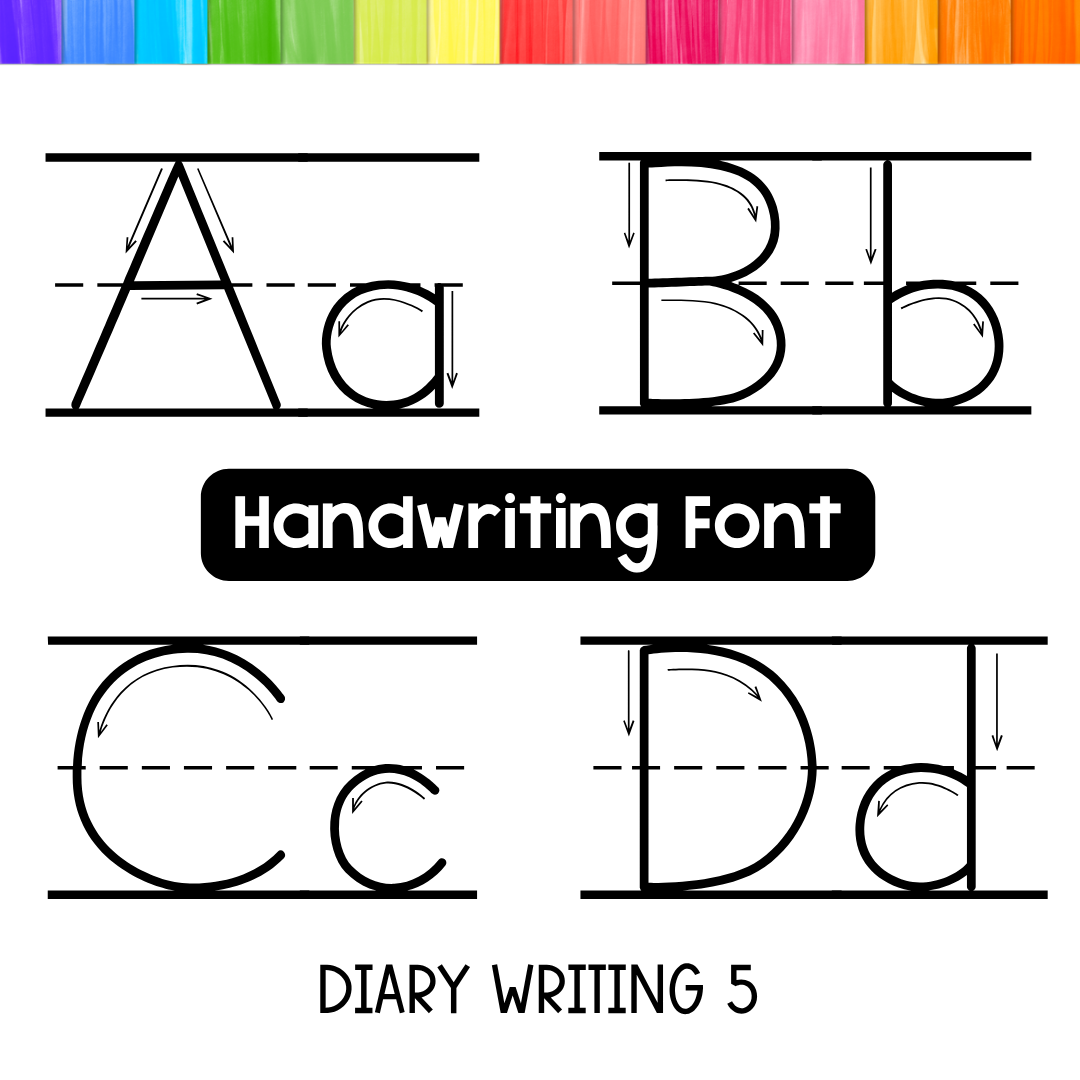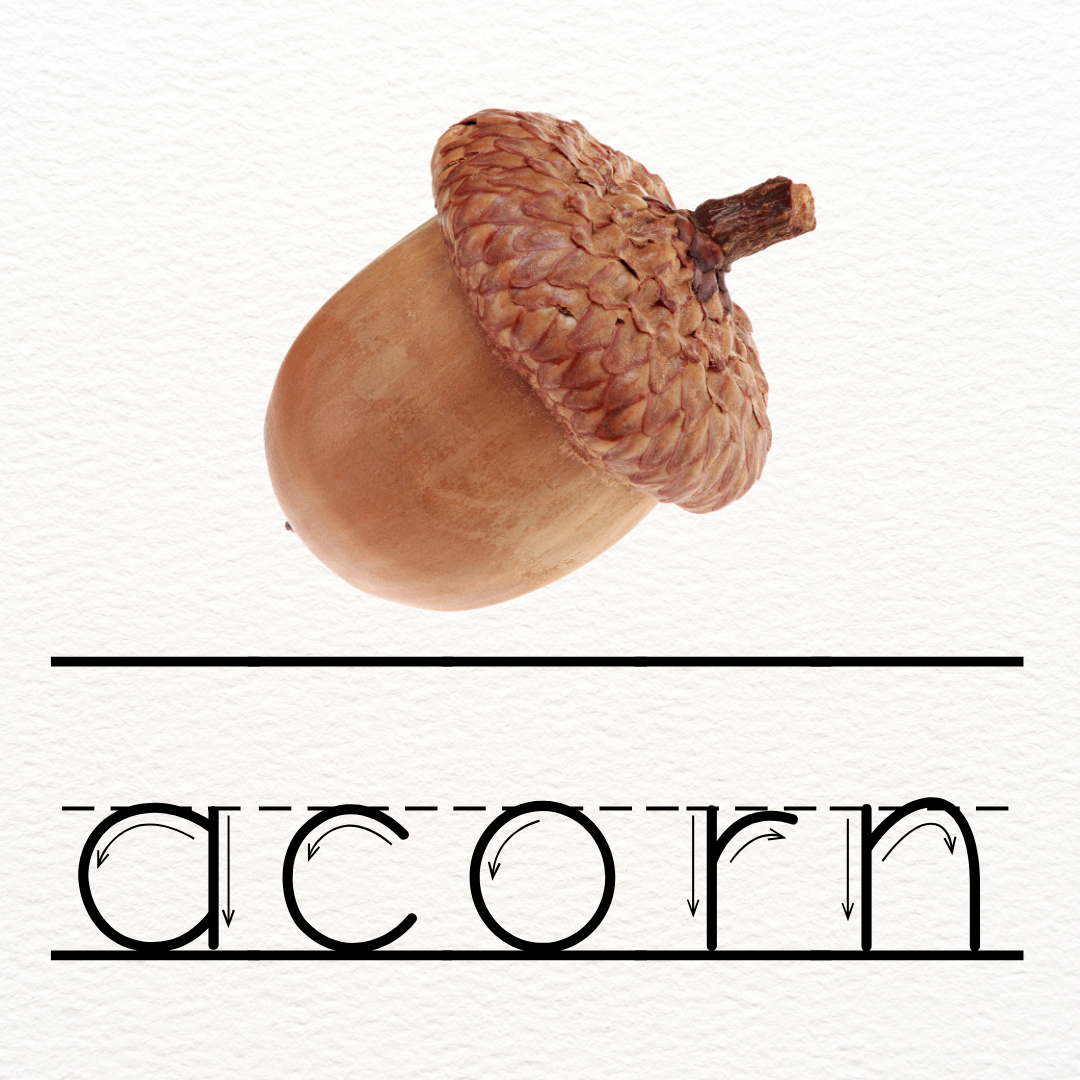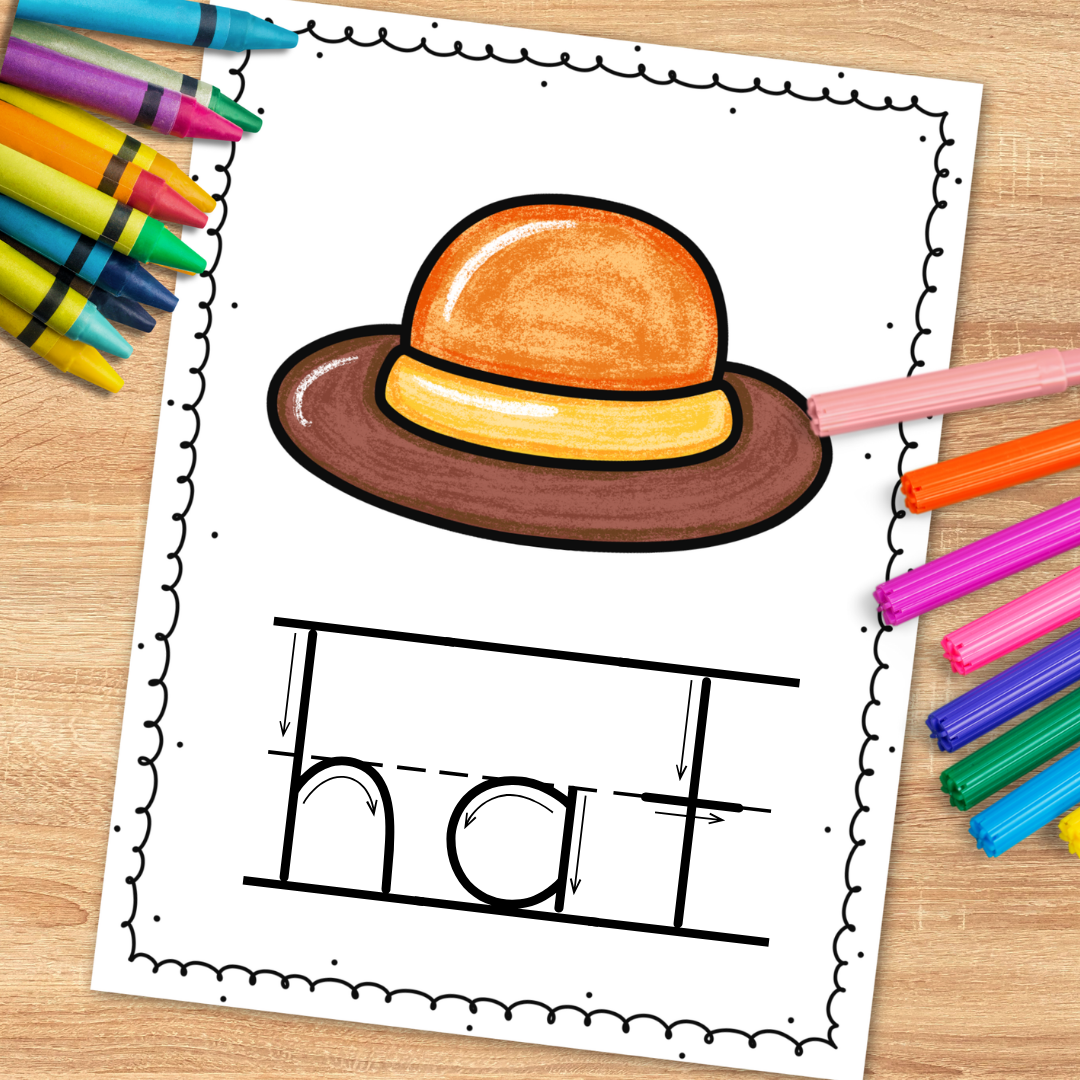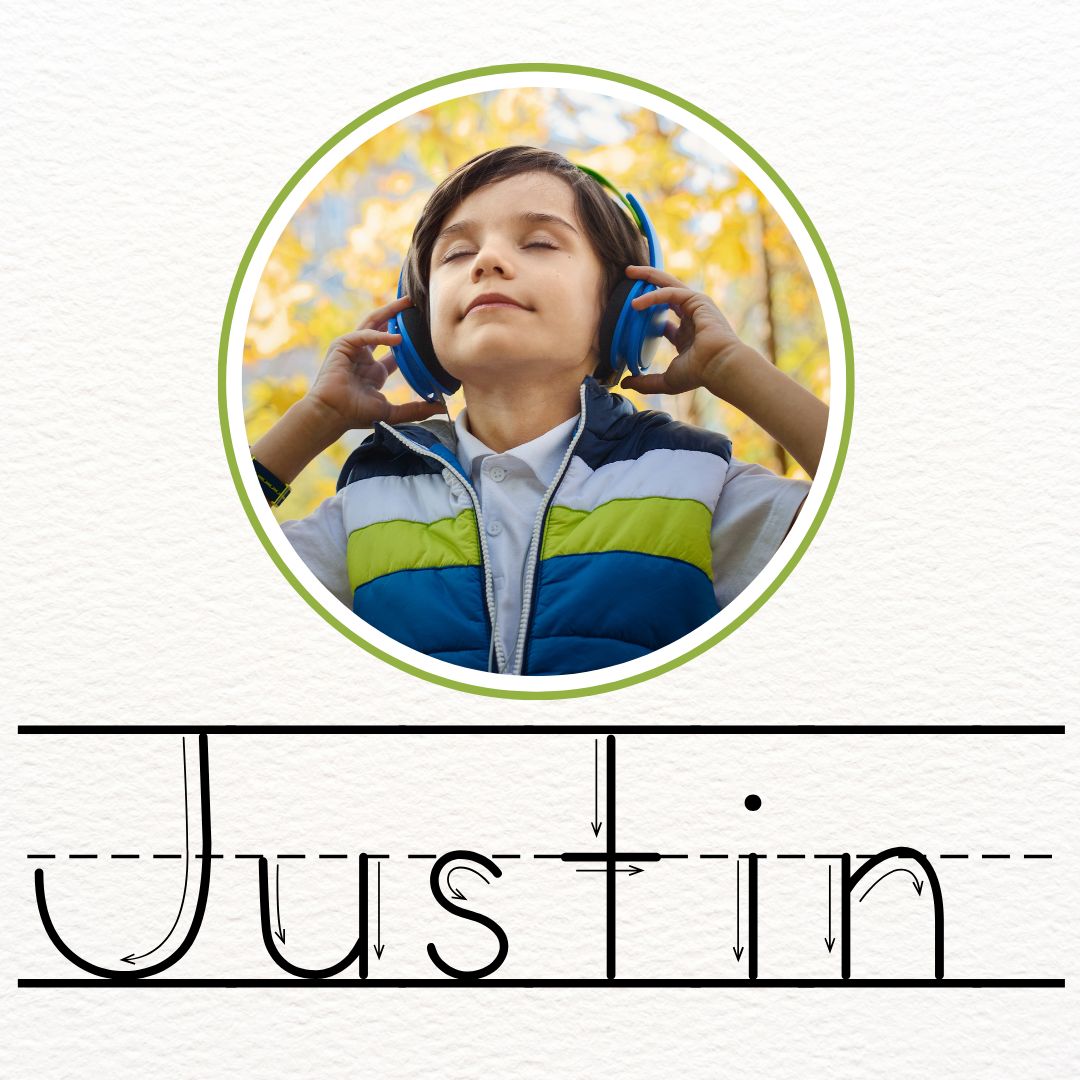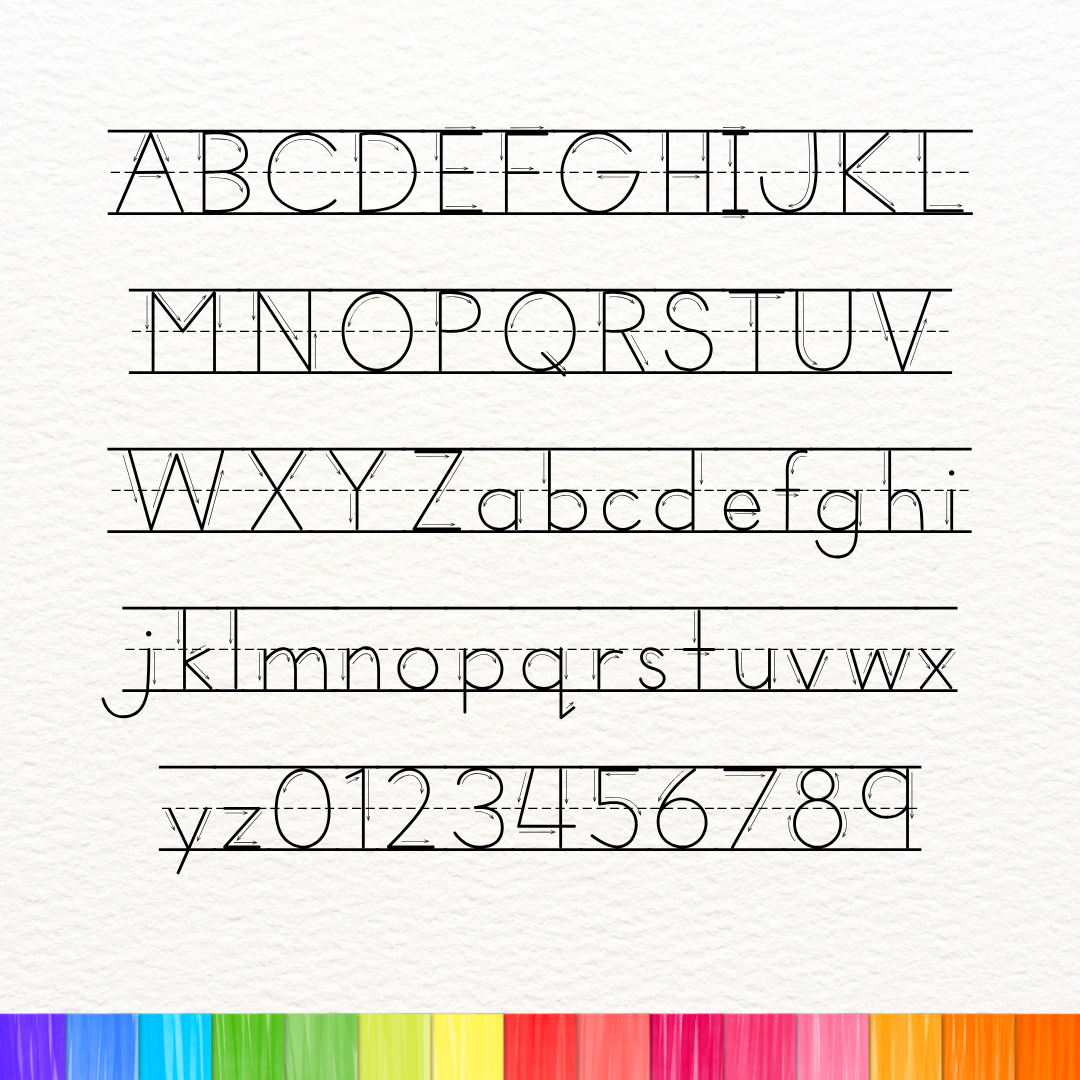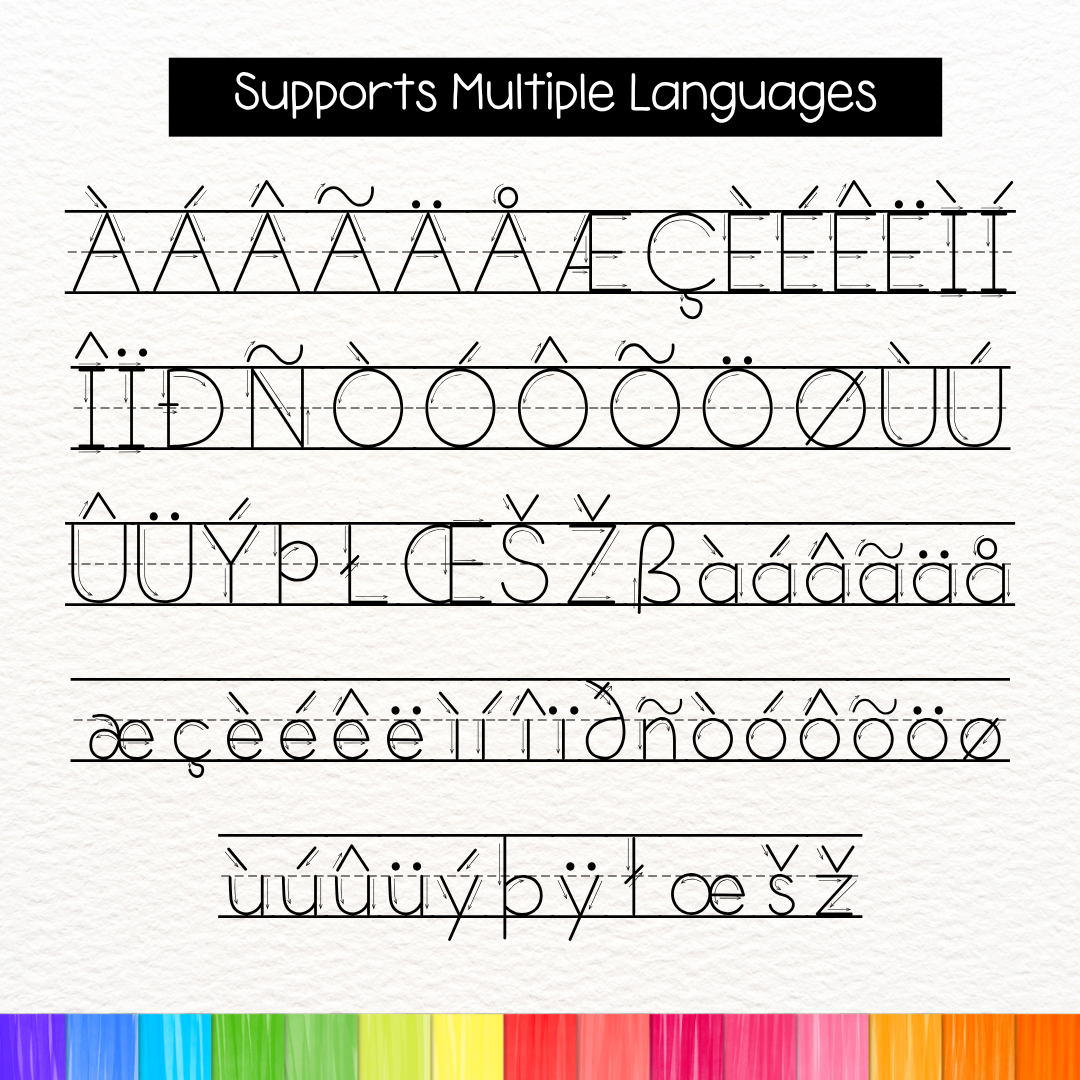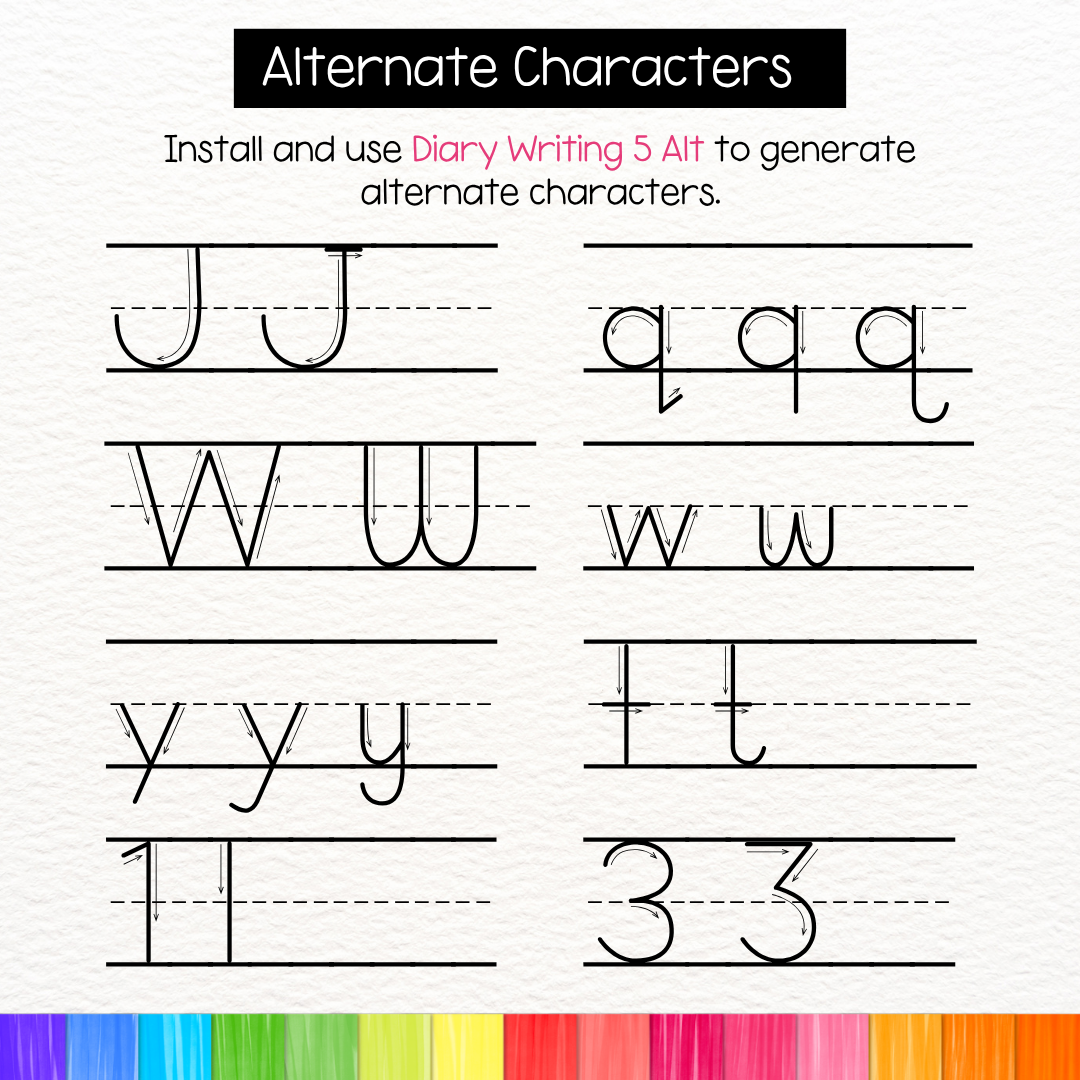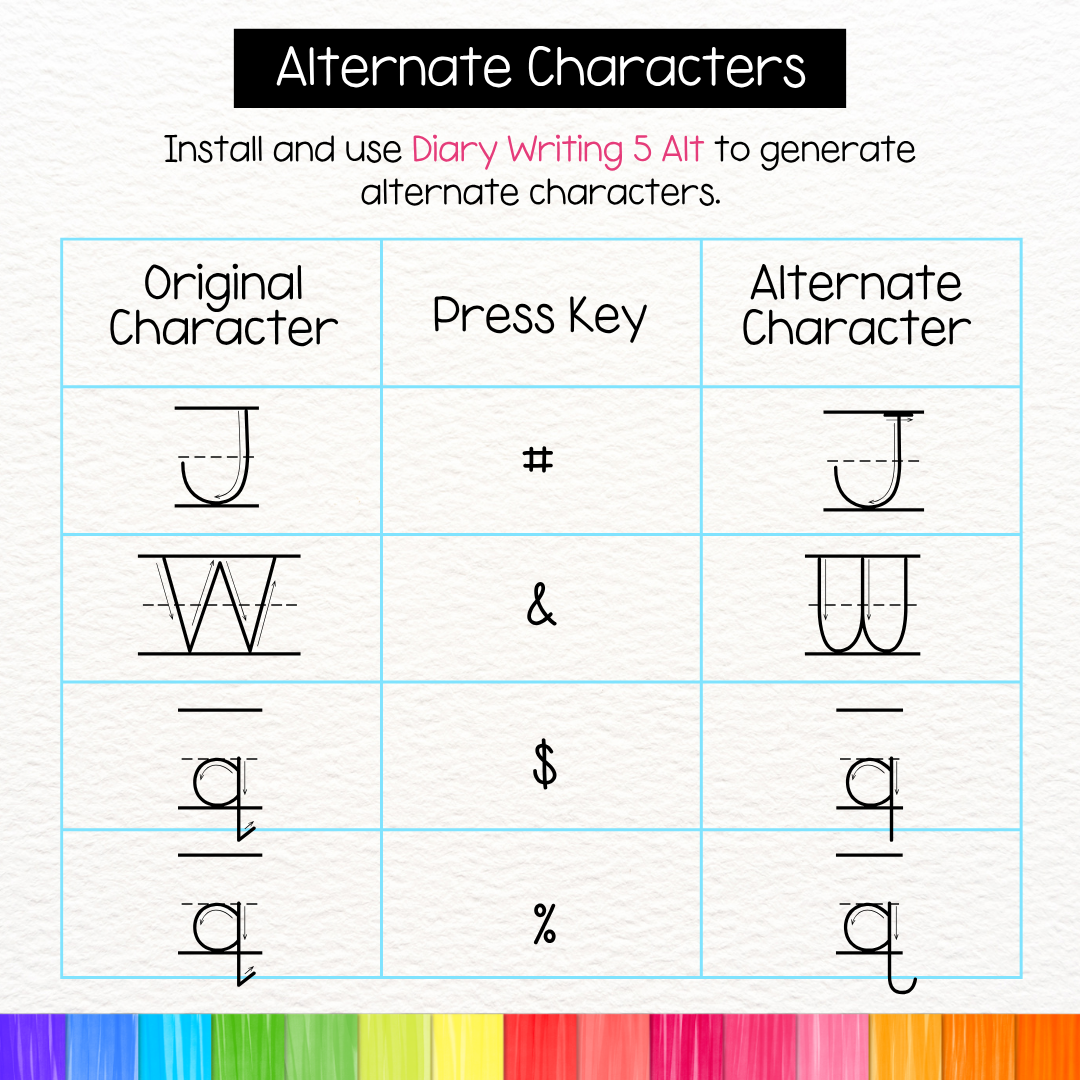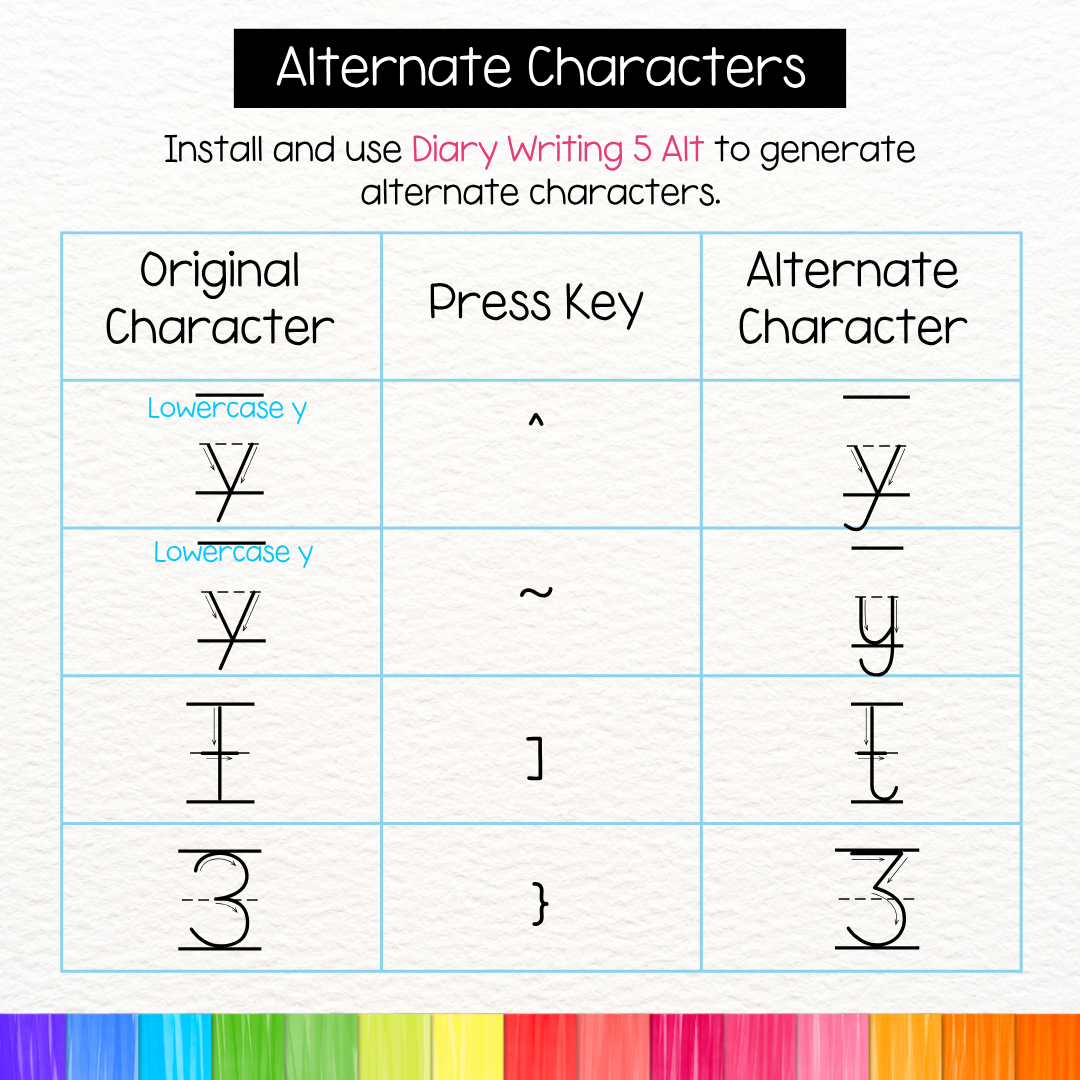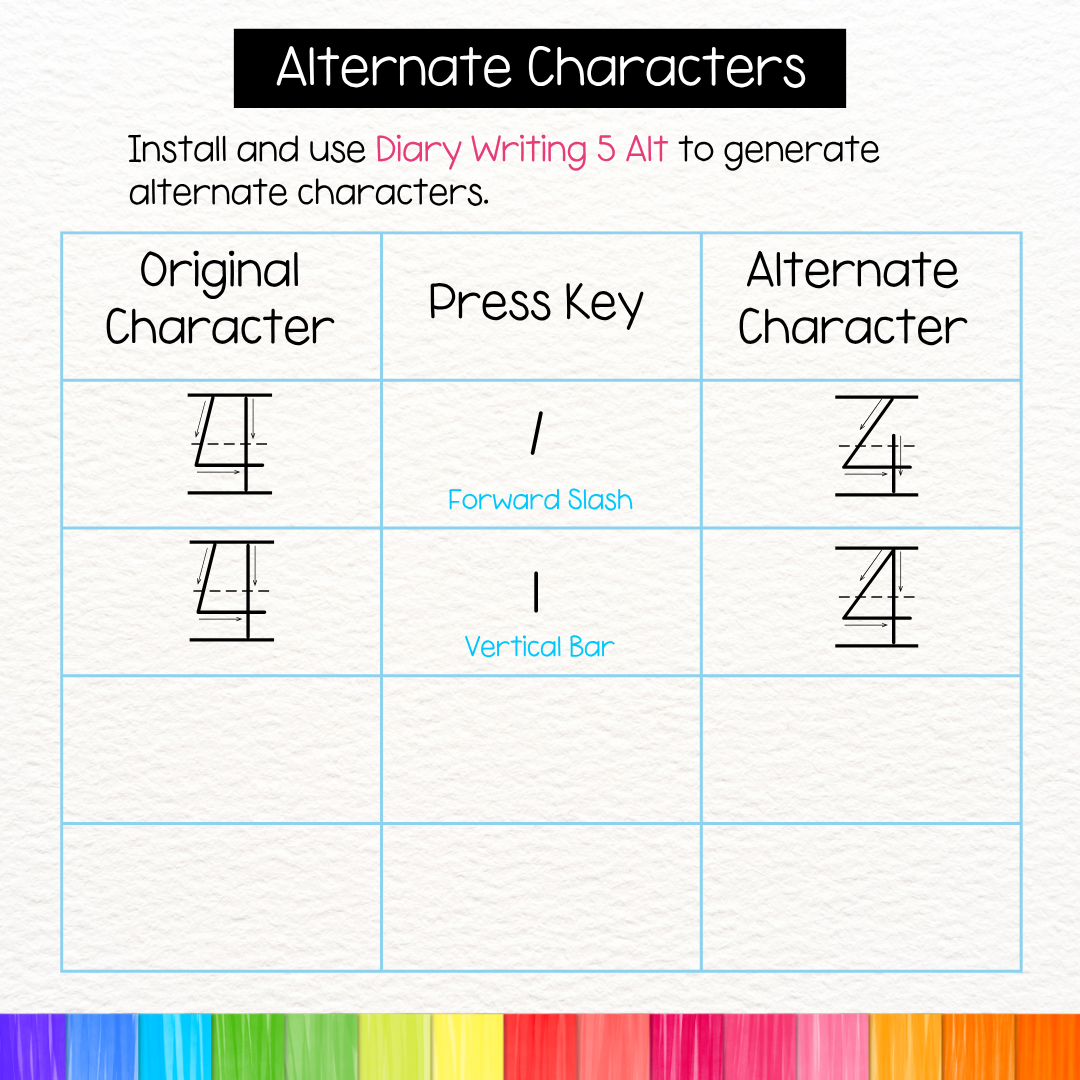
Lined Tracing Font with Arrows for Print Handwriting Practice – Diary Writing 5
This lined tracing font with arrows is perfect for your tracing and fine motor activities. This font download supports all capital letters, lowercase letters, and numbers, making it ideal for toddler tracing, handwriting practice exercises, name tracing, letter recognition, and number tracing exercises, as well as worksheets. It also supports multiple languages.
Lined Print ABC Alphabet Font with Directional Arrows for Handwriting Practice
Handwriting Font with Arrow Guides and Lines – Diary Writing 5 – Commercial Use
This ruled handwriting practice font has letters with arrow guides, perfect for your tracing and fine motor activities. This font includes all capital letters, lowercase letters, and numbers, making it ideal for toddler tracing, name tracing, letter recognition, and number tracing exercises, as well as worksheets. It also supports multiple languages.
Create fun and engaging activities for kids to trace letters with these goodies!